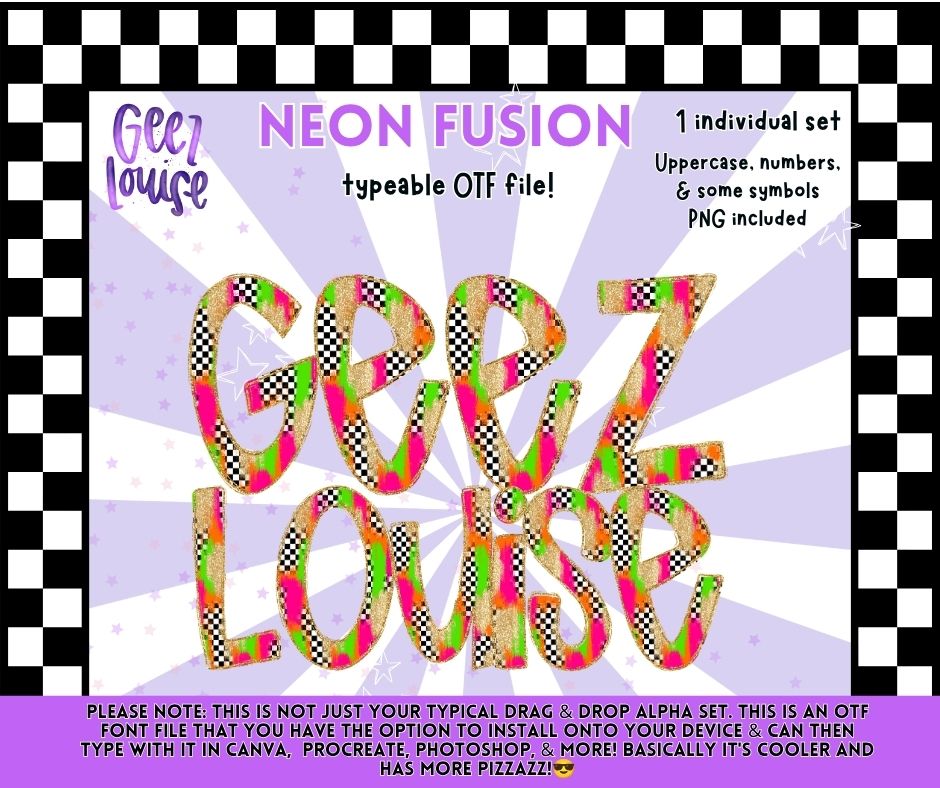
Neon Fusion OTF Font | Bright Checkerboard Alphabet | PNG Alpha Included | August 26 Combo & Drive
Add a bold pop of color to your creations with the Neon Fusion OTF Font! This vibrant alphabet features bright neon colors, checkerboard accents, and glitter details for a fun retro look.